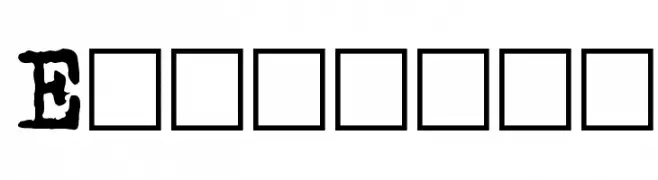
( Fonts by Andy Krahling )
A bold, outlined font with a vintage, decorative style.
( Fonts by www.fontosaurus.com )
A bold, handwritten font with a playful and energetic style.
( Fonts by dartcanada.tripod.com - Darren Rigby )
A modern serif font with unique hook-like serifs and smooth curves.
( Fonts by Paul Lloyd )
A bold, decorative blackletter font with intricate details and a medieval flair.
( Fonts by Jonathan Paterson )
A dynamic, slanted handwritten font with fluid strokes and a personal touch.
( Fonts by The Scriptorium - Dave Nalle )
A bold, medieval-inspired font with sharp, angular lines and a modern twist.
A bold, decorative font with intricate patterns and a vintage flair.